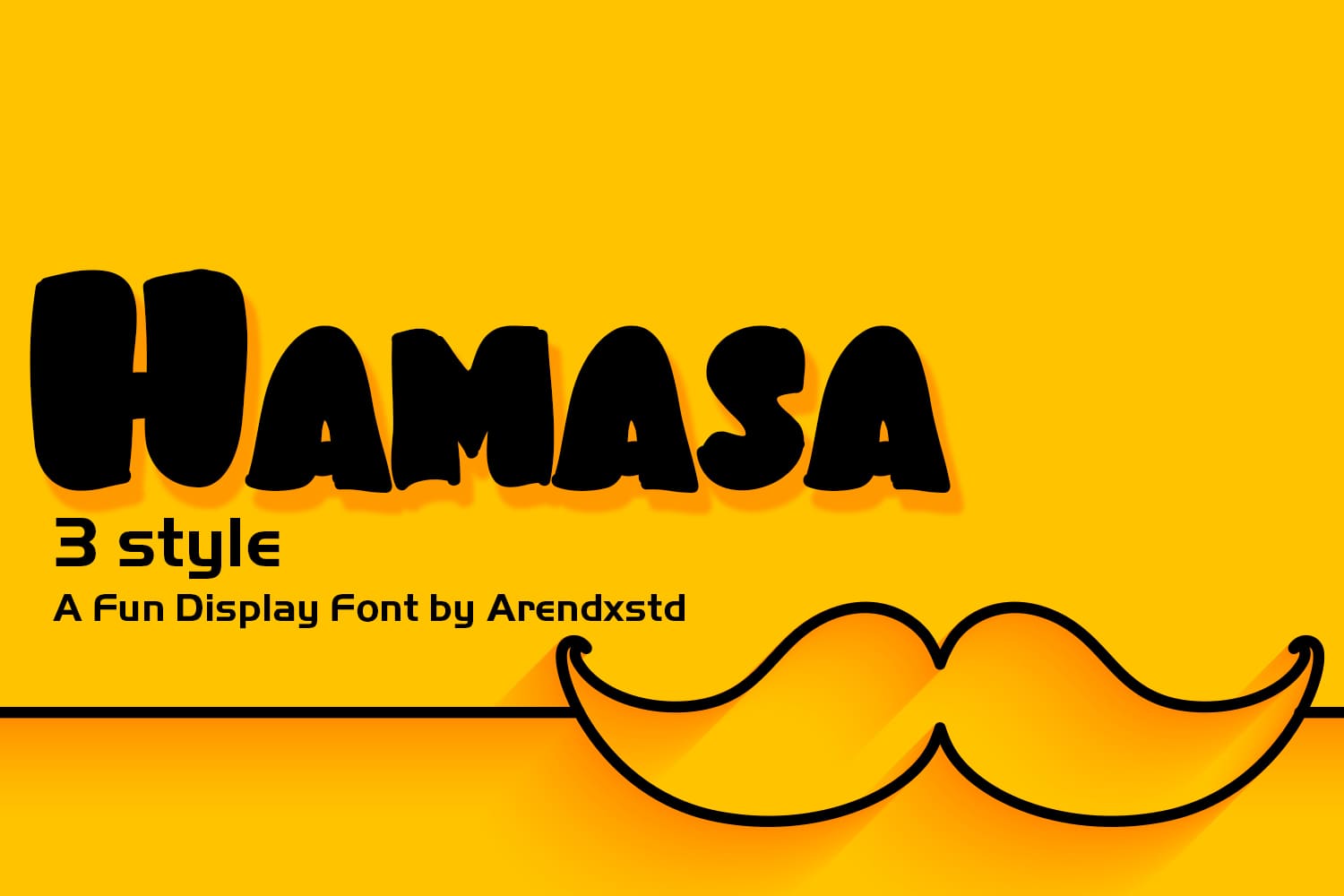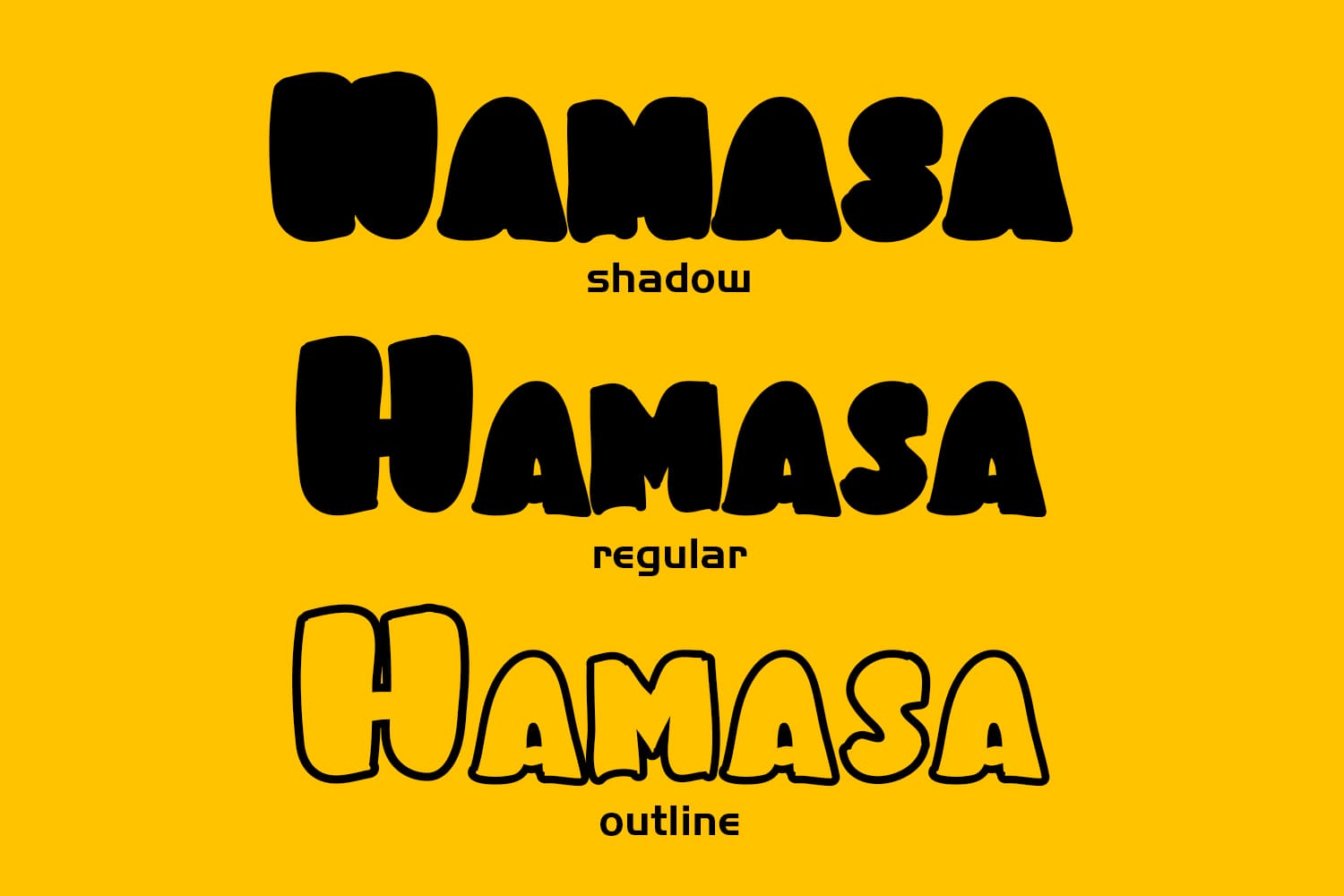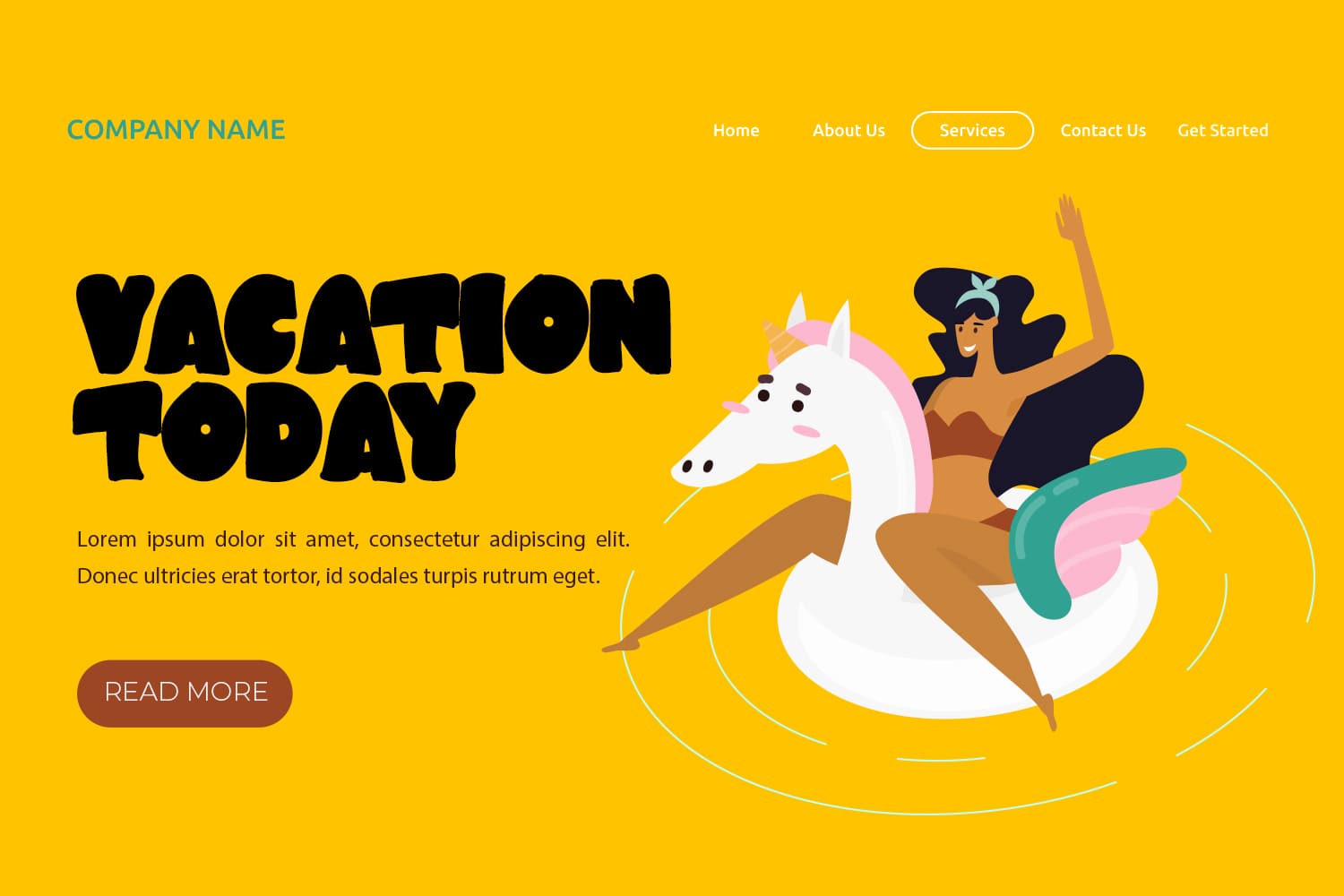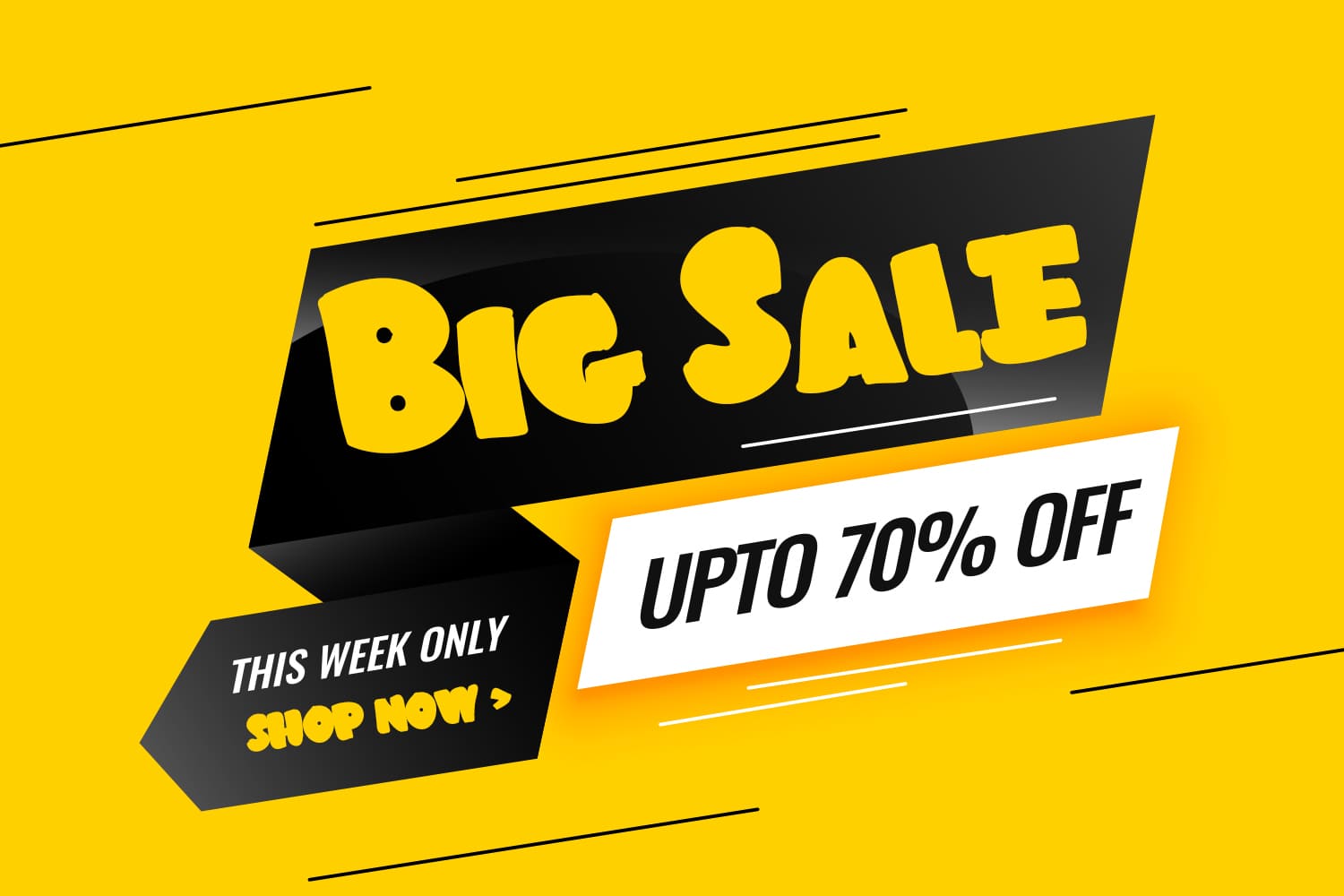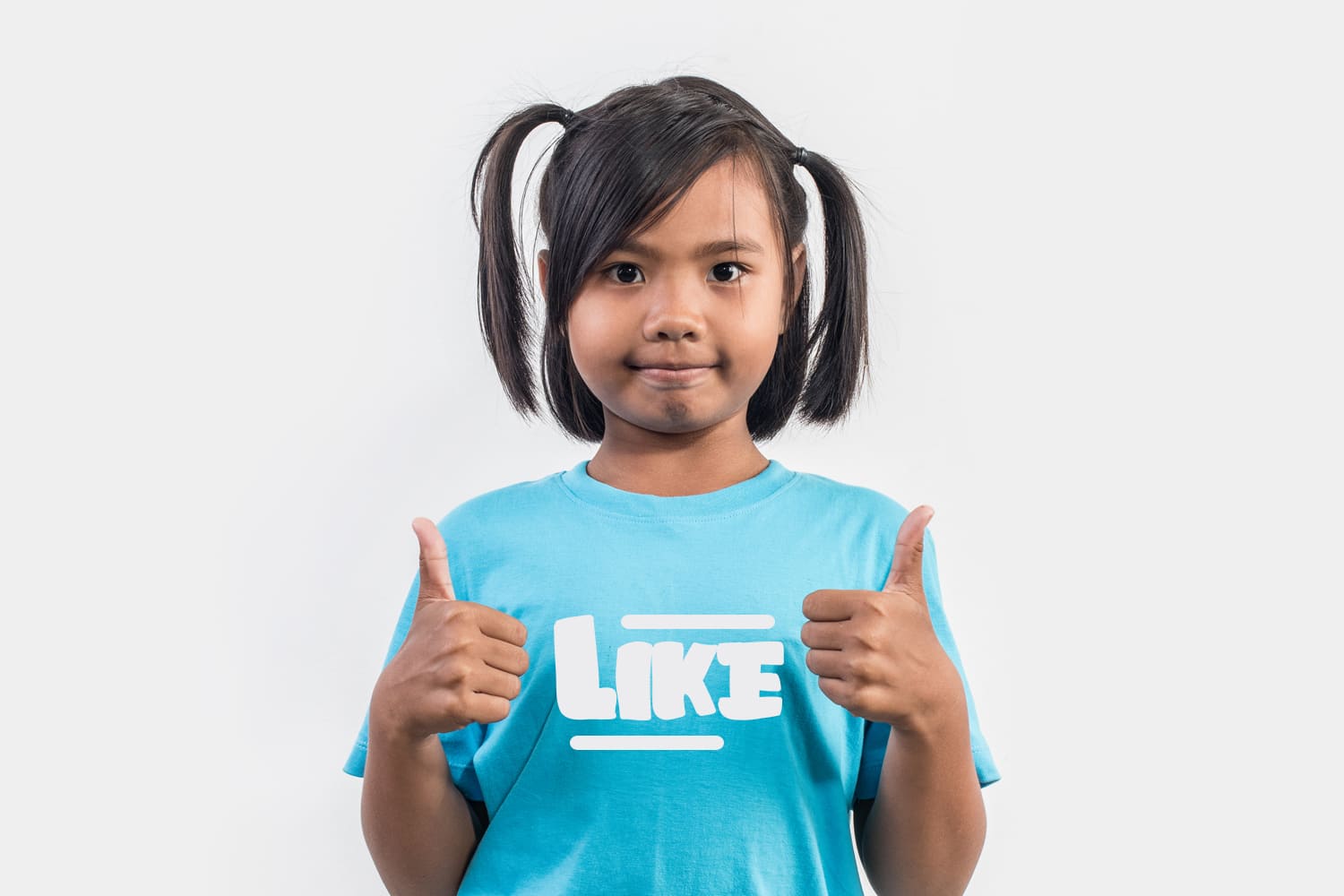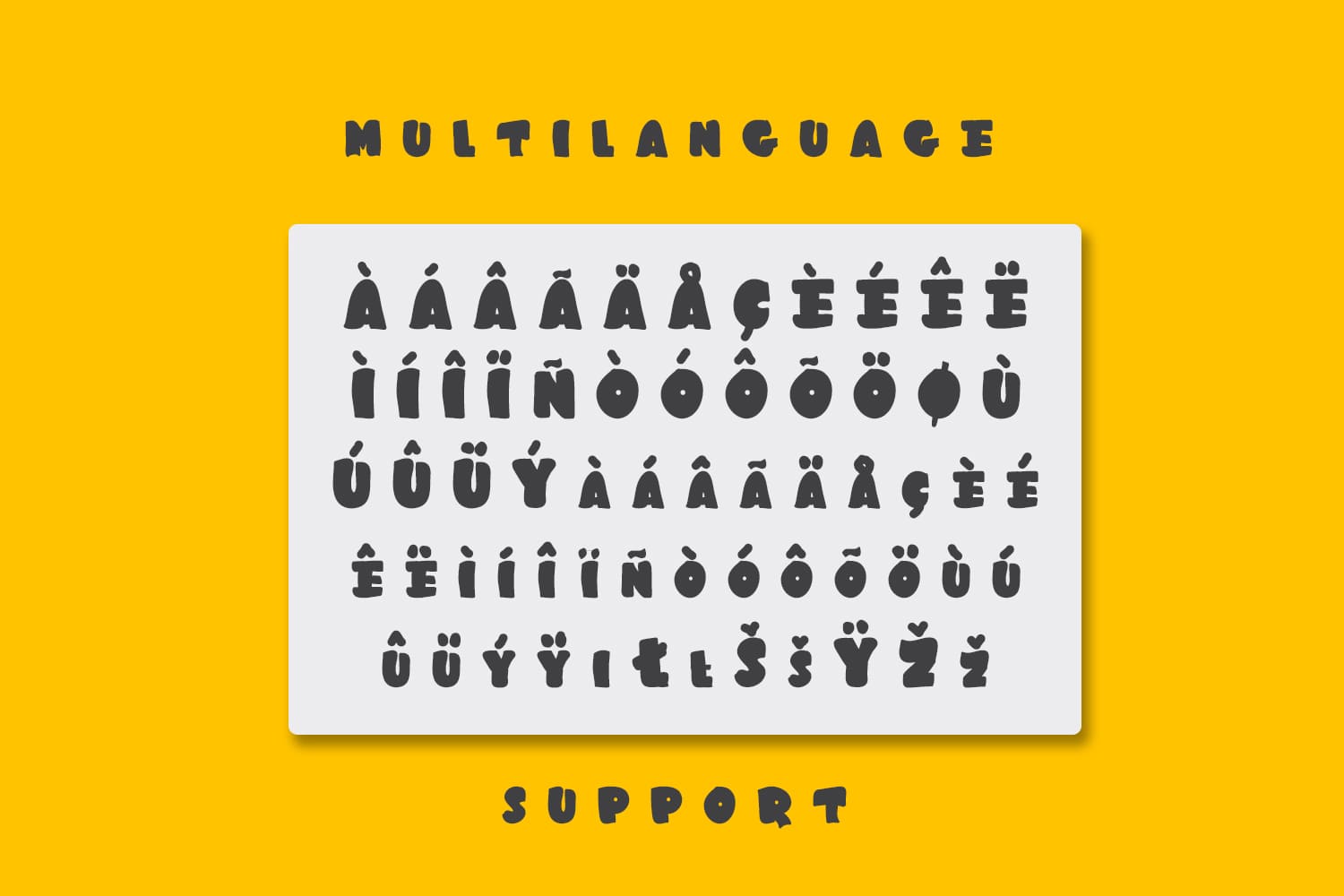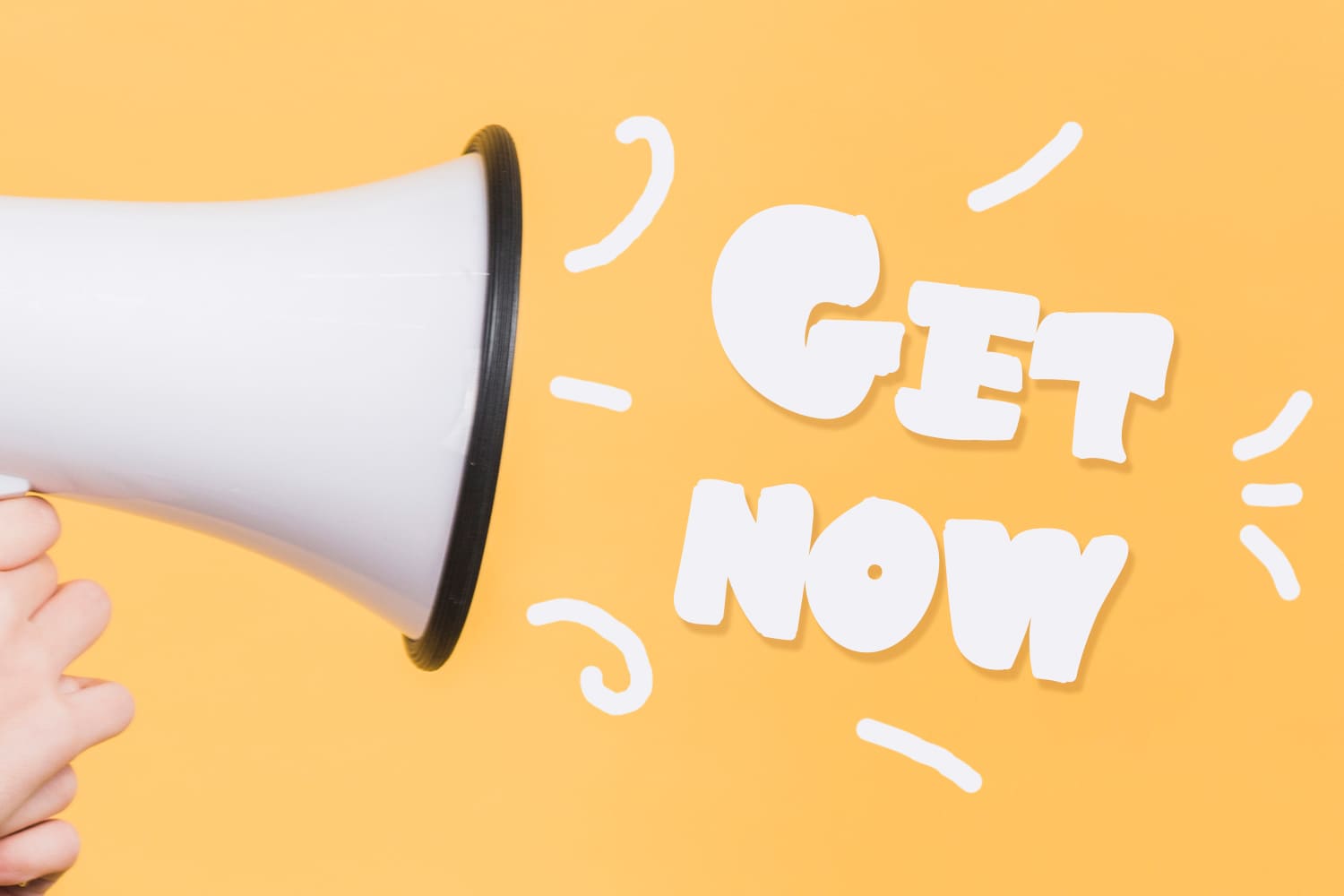
Hamasa Family (3 fonts)
Hamasa is designed to display character fonts which are very cute fonts with lots of variations in them which make for a happy atmosphere.